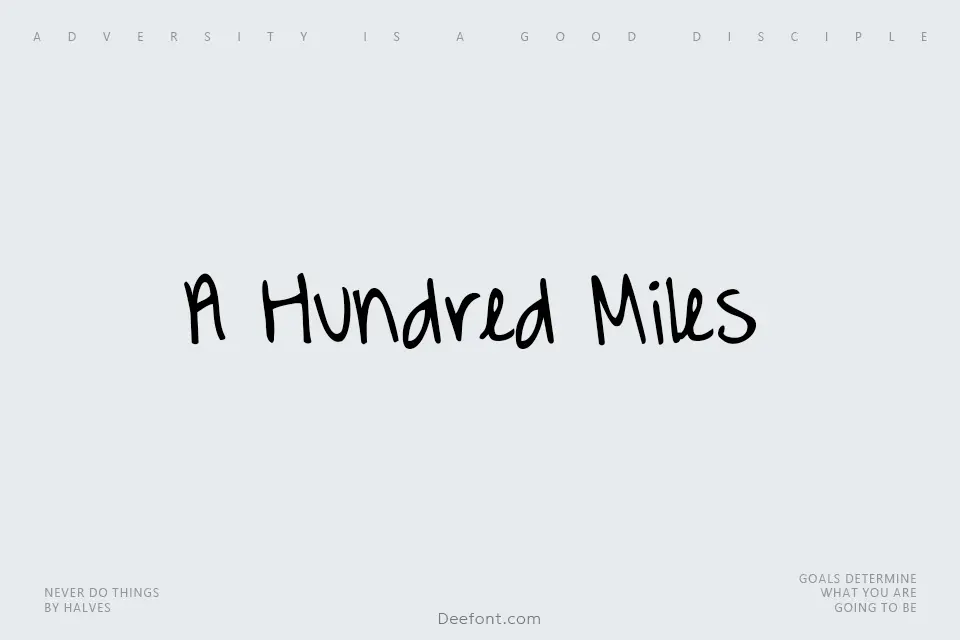
A Hundred Miles Font
A Hundred Miles is an authentic handwritten script font that captures the carefree spirit of adventure with its slightly imperfect, hand-drawn aesthetic. Featuring smooth, flowing letterforms with gentle irregularities, this friendly typeface excels in projects requiring genuine handwritten charm. Ideal for posters, invitations, greeting cards, social media graphics, and creative titles, the font brings an approachable, playful energy to any design. Its 324 glyphs provide comprehensive character support, making it versatile for various languages and creative applications.